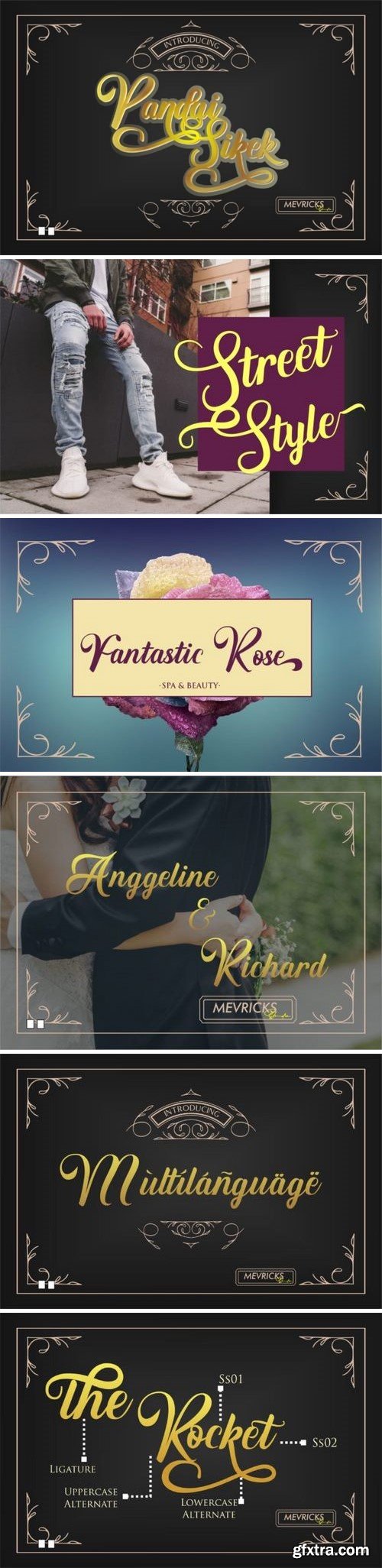
Pandai Sikek is a handicraft in the form of woven fabric from West Sumatra in Indonesia Pandai Sikek is a very detailed and very classy craft and from that philosophy why did I give the name of my work with the name Pandai sikek which in every detail of the font I made was inspired by the tenacity of the Pandai sikek weaving craftsmen